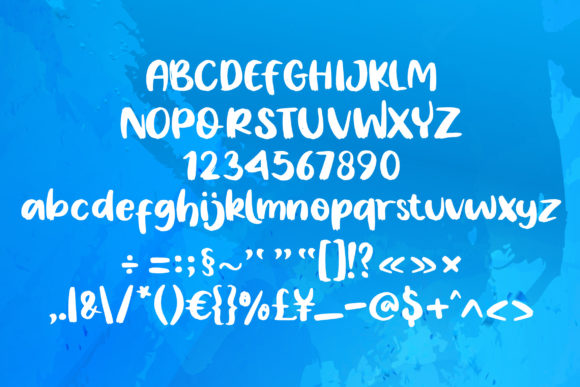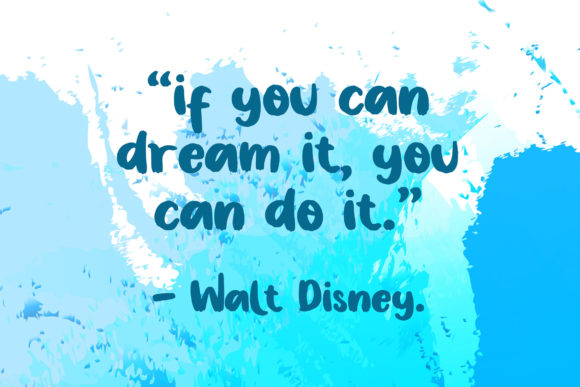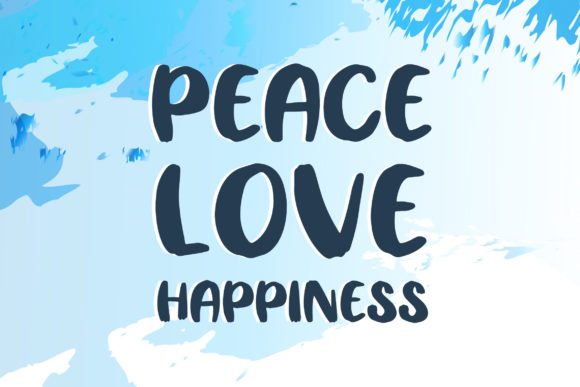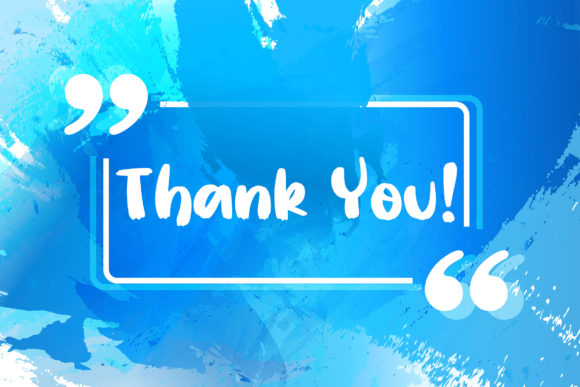
Introduction to Homan Font
Homan is a neat, friendly and brushed display font.
Relaxed and casual, this font will fit a variety of design ideas Add it confidently to your projects, and you will love the results.
Key Features of Homan Font
Why Choose Homan Font?
Homan Font offers exceptional quality and versatility, making it a valuable addition to your design toolkit. Whether you’re creating for personal projects or commercial use, Homan Font delivers professional results.